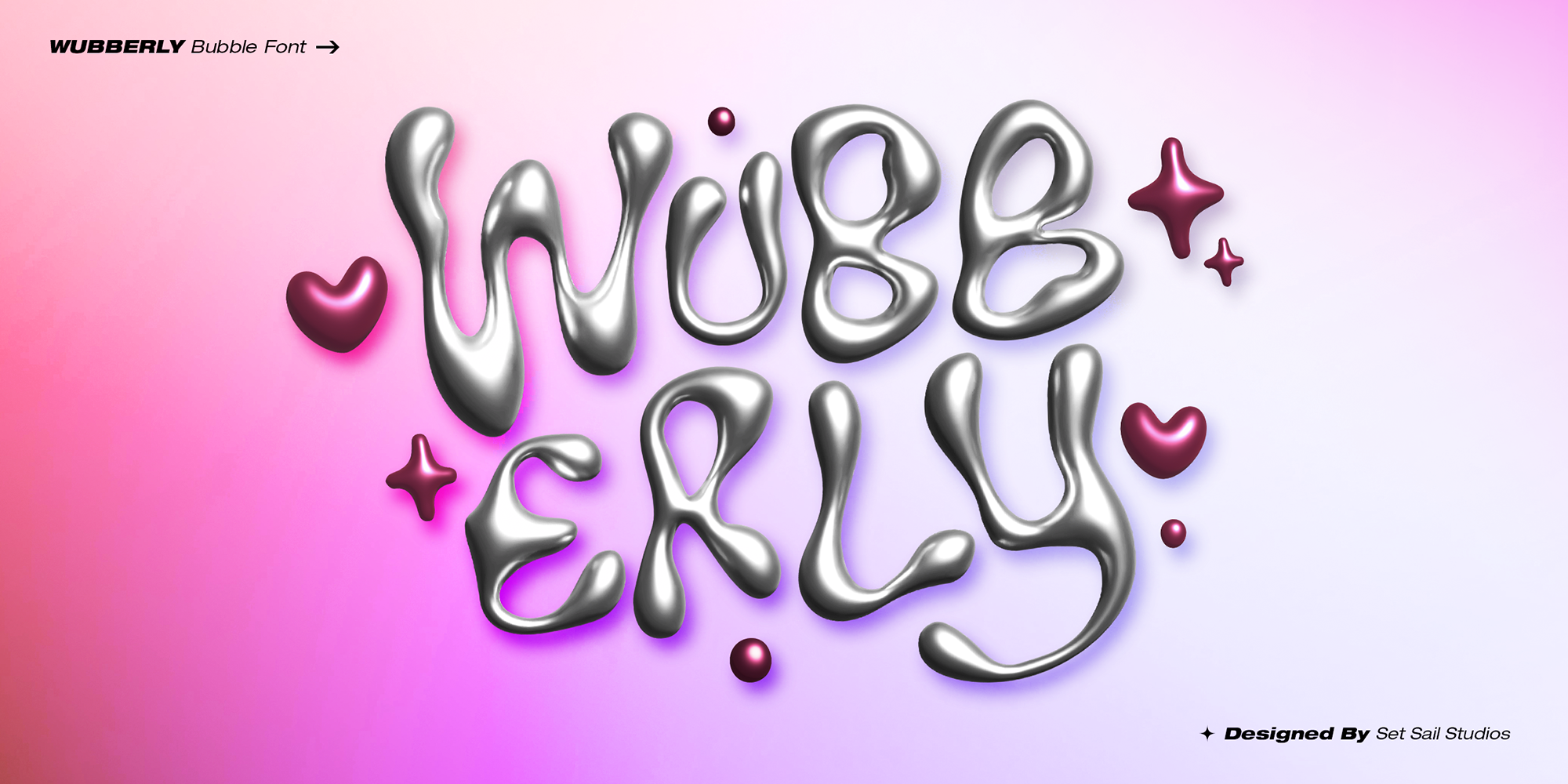
Wubberly Font is ideal for playful children's branding, whimsical toy packaging, bubble-themed party invitations, fun daycare materials, bouncy play area signage, cheerful nursery decorations, joyful celebration graphics, bubbly social media content, happy children's book covers, and delightful family entertainment marketing.
What makes Wubberly Font exciting is its bubbly joy and whimsical playfulness that captures the essence of childhood wonder with infectious happiness and carefree spirit. This delightful typeface embodies the spirit of pure fun with its bouncy character forms and bubble-inspired proportions that seem to float and dance like soap bubbles catching sunlight on a perfect summer day. The font's playful character creates an immediate smile and the kind of joyful energy that makes everyone feel young at heart and ready to embrace life's most delightful moments.
Wubberly Font family includes regular weight with playfully crafted character designs featuring bubbly curves and whimsical proportions. The typeface maintains excellent readability while showcasing its distinctive joyful personality through bouncily designed letterforms that seem to giggle with delight and radiate the pure happiness that comes from uninhibited childhood play.
Children's brand designers consistently choose Wubberly Font Free Download for projects requiring authentic playful appeal and childhood credibility. This remarkable typeface brings the magic of childhood wonder to brand communications, combining whimsical aesthetics with joyful energy to create memorable family experiences. The playfully designed characters ensure maximum fun impact across all applications, making it essential for children's brands, toy companies, and any organization seeking to communicate the transformative power of play and the boundless joy that comes from embracing the whimsical spirit of childhood through Wubberly Font Free Download.